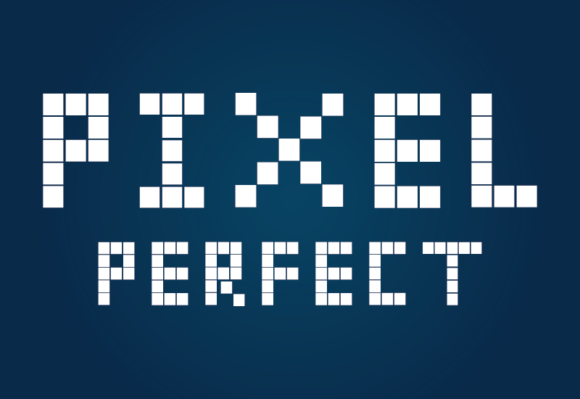
Dive into the world of Pixel Perfect, a font family that embodies the essence of retro charm with a modern twist. Each letterform is meticulously crafted to capture the essence of nostalgia, evoking a sense of familiarity and warmth. Its distinct counter and flip style adds a playful touch, making it an ideal choice for designers seeking a unique and eye-catching font. Pixel Perfect is not just a font; it's a journey through time, a bridge between the past and the present.
With Pixel Perfect, your creative visions will soar to new heights. Its retro aesthetics will infuse your designs with a timeless appeal, resonating with audiences of all ages. Unleash your imagination and let Pixel Perfect be your creative companion, guiding you towards remarkable outcomes. Whether you're crafting logos, posters, flyers, or social media campaigns, Pixel Perfect will elevate your designs, leaving a lasting impression on your audience.
Pixel Perfect is not merely a font; it's an experience. Its unique style evokes emotions, transporting you to a bygone era while simultaneously propelling you into the future of design. With Pixel Perfect, you'll discover a world of possibilities, where creativity knows no bounds. Embrace the Pixel Perfect experience and watch your designs transform into masterpieces.
So, why settle for ordinary fonts when you can embark on an extraordinary journey with Pixel Perfect? Let your designs dance with retro charm, embrace the flip and counter style, and make a statement that resonates with your audience. Pixel Perfect is more than just a font; it's a gateway to a world of endless creative possibilities. Seize the opportunity to own this remarkable font family and elevate your designs to new heights.